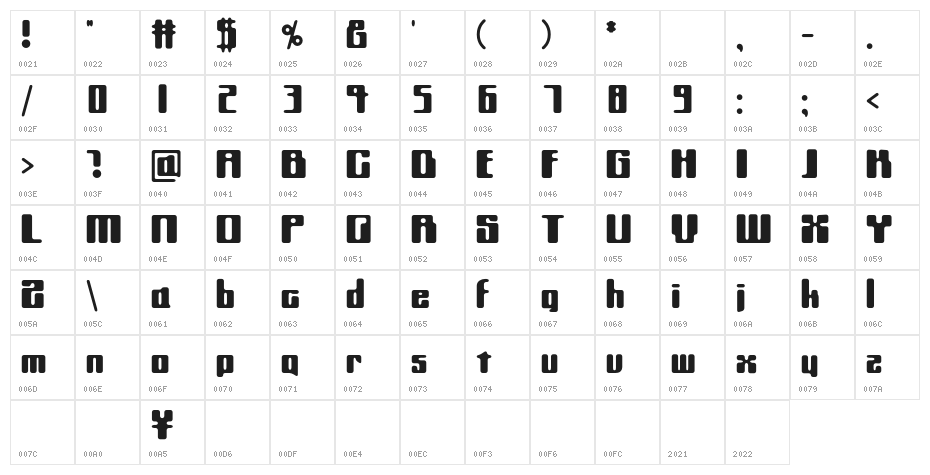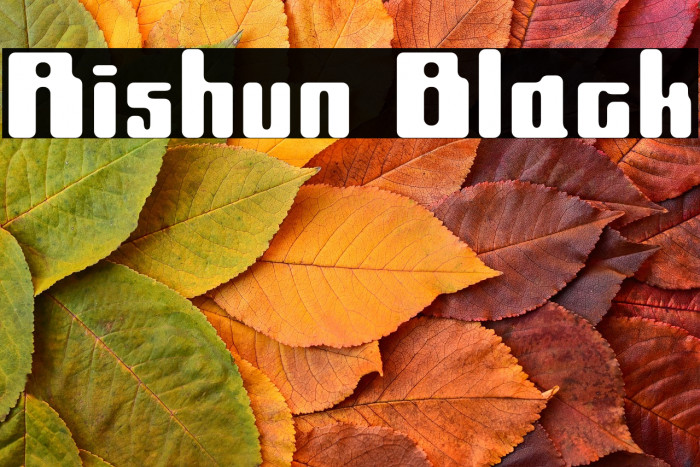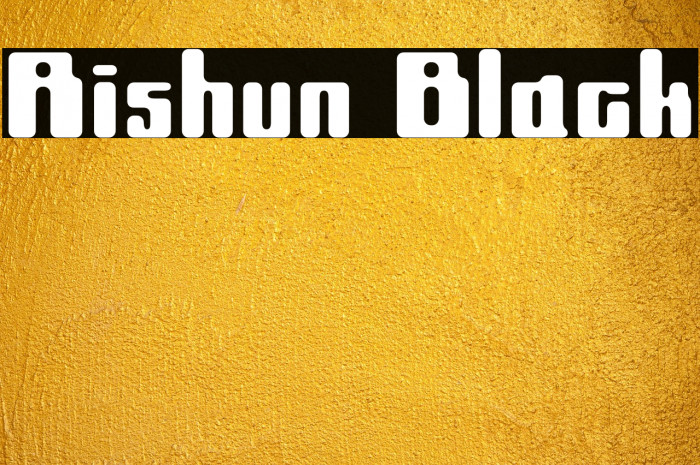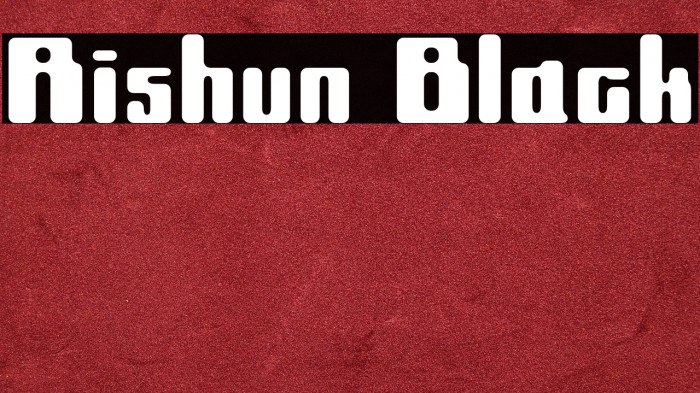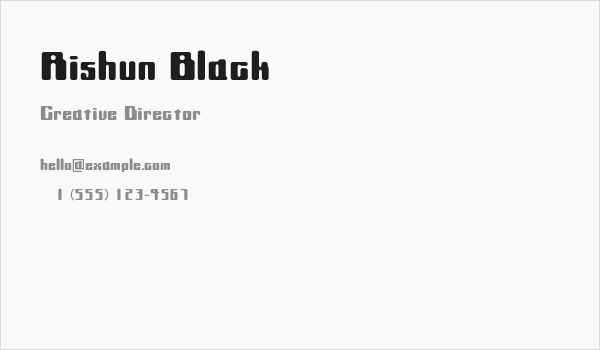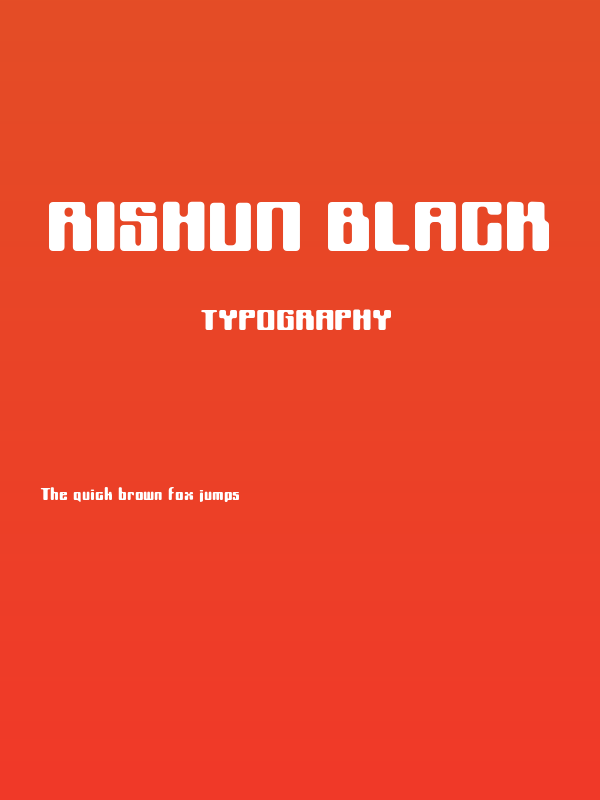
Rishun Black Font
Rishun Black Description
This font features bold, rounded characters with a strong presence. The letters are uniformly thick, giving them a solid and impactful appearance. The rounded edges soften the overall look, making it approachable while maintaining a sense of authority. The numbers and special characters follow the same design principles, ensuring consistency throughout. This font's style is both modern and slightly retro, with a playful yet commanding aesthetic.
| Proposed Projects | Ideal for branding, posters, headlines, and any project requiring a bold statement. |